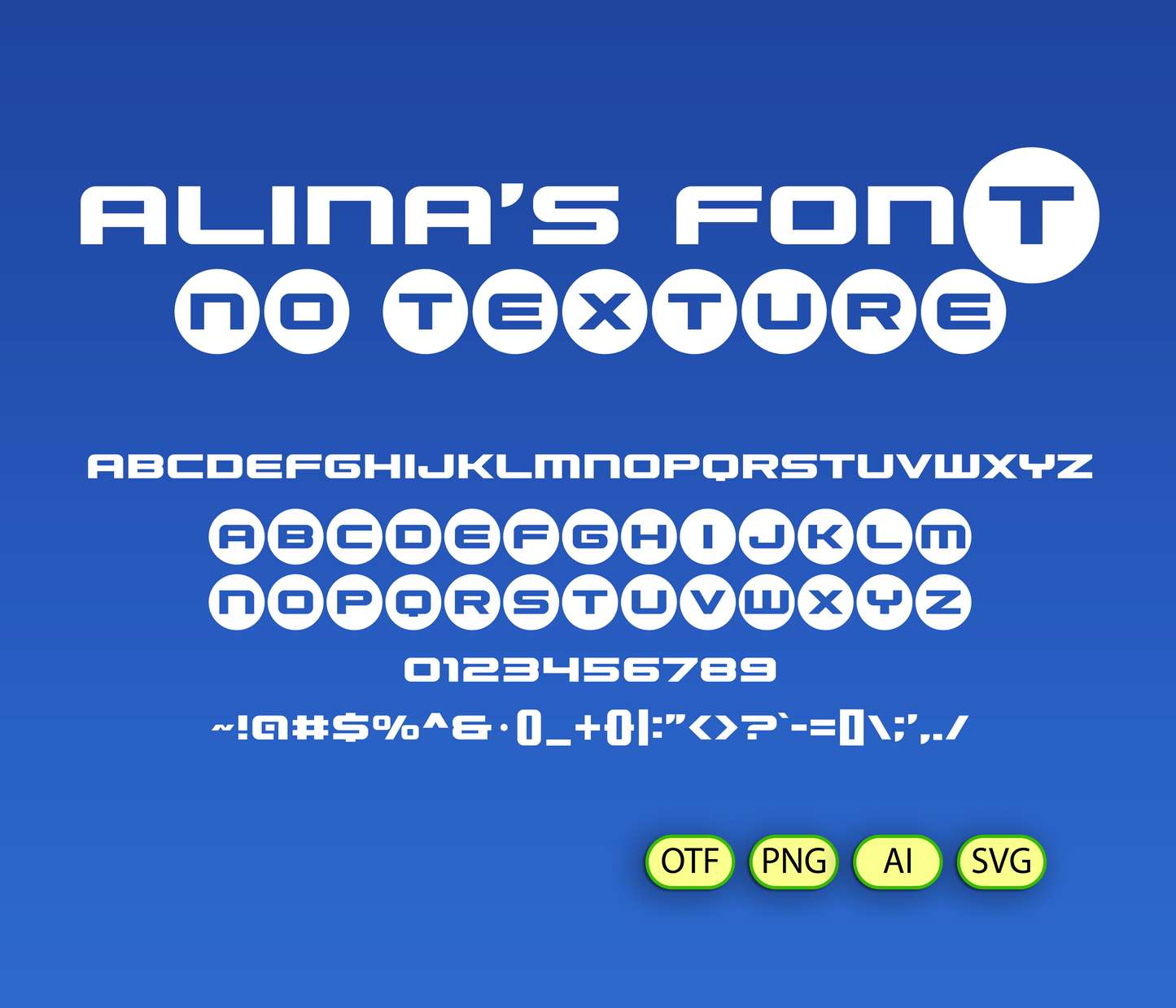
Little Recycler Bot Font
Step into the world of charming automation with our Little Recycler Bot font, capturing the essence of adorable machinery and environmental care. Perfect for eco-conscious creators, animation fans, tech enthusiasts, and digital artists, this clean-lined font brings mechanical heart to your projects. Create earth-friendly materials, robot-themed designs, or space-age content with the endearing spirit of a helpful companion.
Our Little Recycler Bot font features warm, mechanical lines and eco-friendly characters reflecting the charm of helpful robots. Ideal for:
- Environmental Events: Create engaging materials for recycling initiatives, earth-care programs, and green technology showcases.
- Robot-Themed Projects: Design charming invitations, decorations, and signage for tech-loving celebrations.
- Digital Content: Enhance websites, social media, and presentations with lovable mechanical typography.
- Educational Materials: Perfect for environmental awareness, space exploration lessons, and robotic learning resources.
- Creative Projects: Ideal for eco-conscious crafts, futuristic decor, and mechanical-themed merchandise.
Our font pays tribute to robotic companionship, empowering your designs with its charming and eco-conscious spirit. Whether crafting environmental materials, designing tech-themed merchandise, or adding mechanical warmth to special projects, this font communicates the lovable essence of helpful automation. Ready to power up your creations? This font is your key to robot-inspired design.